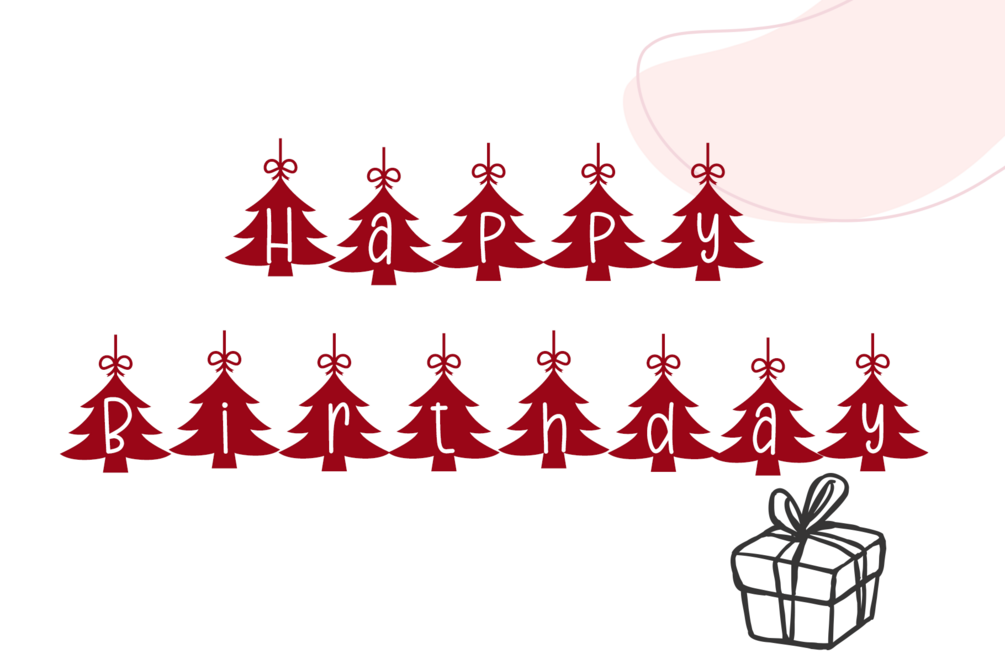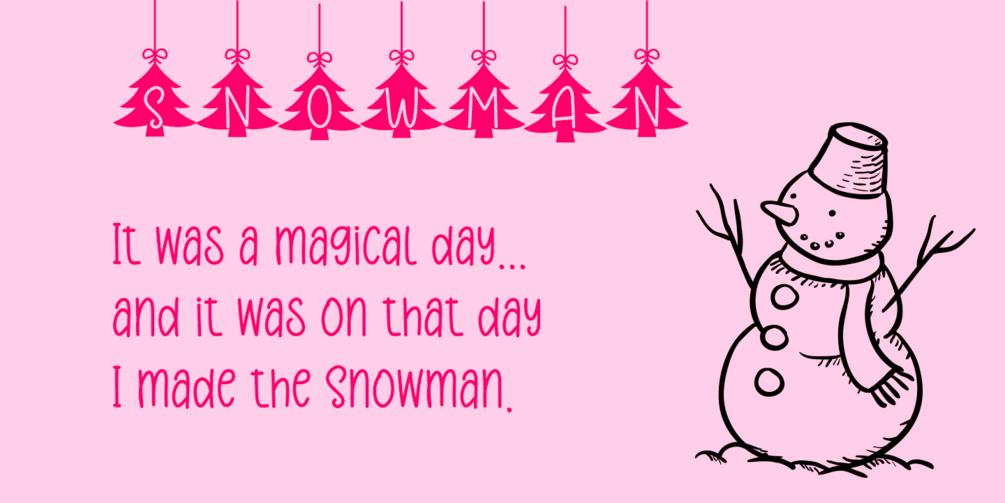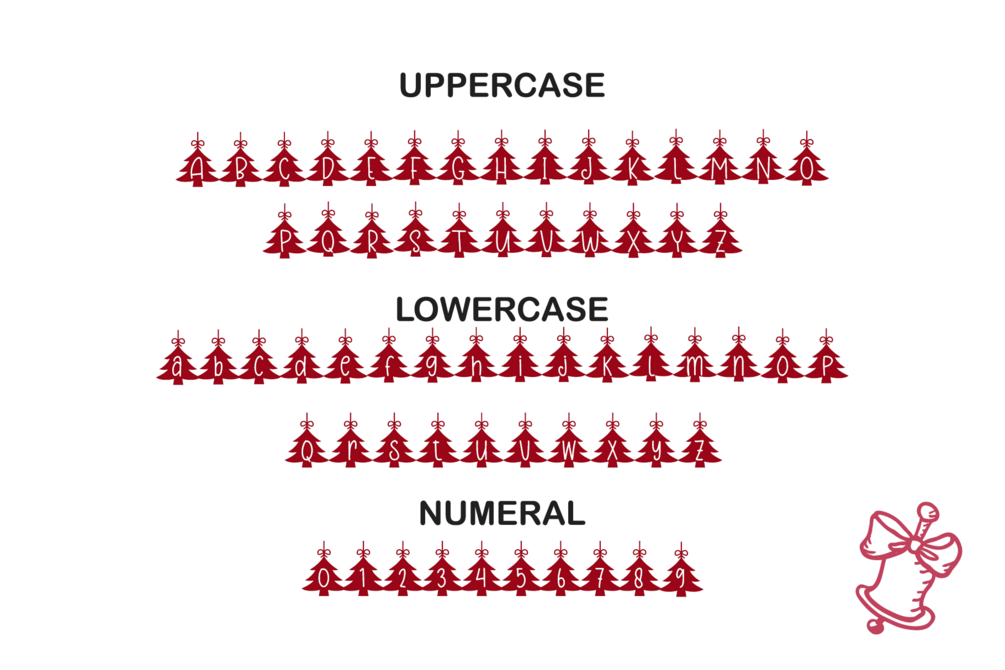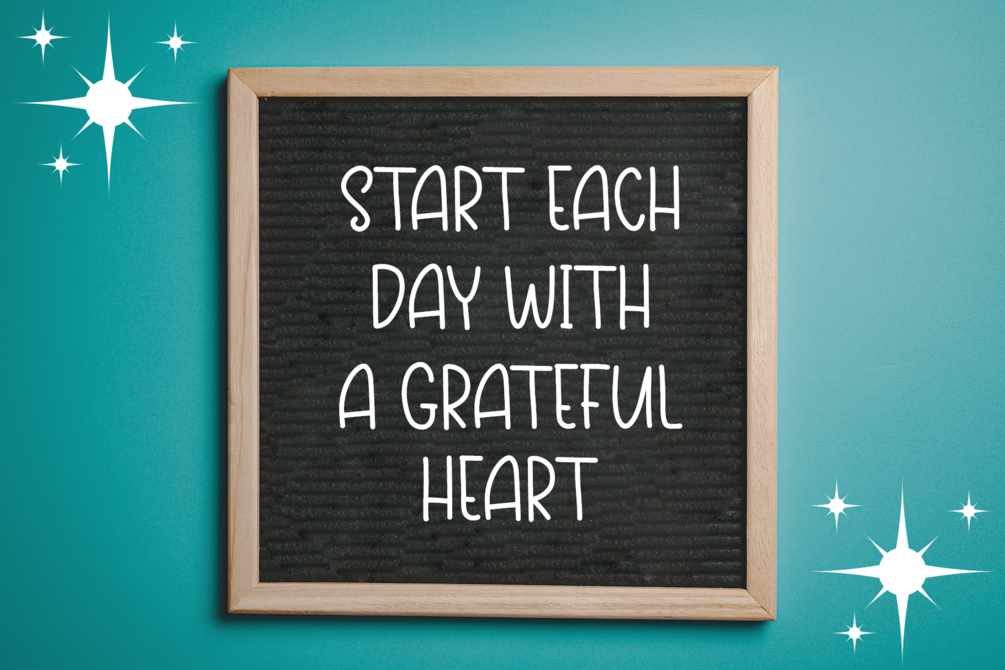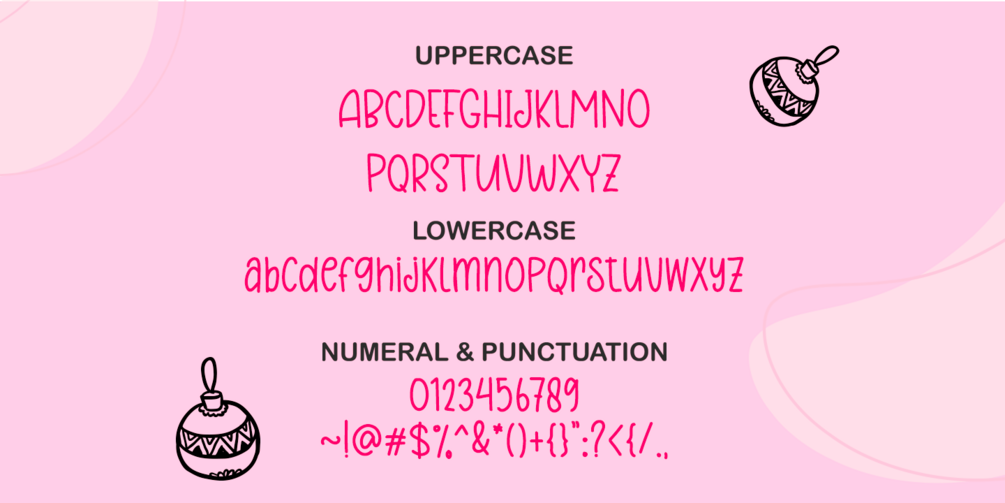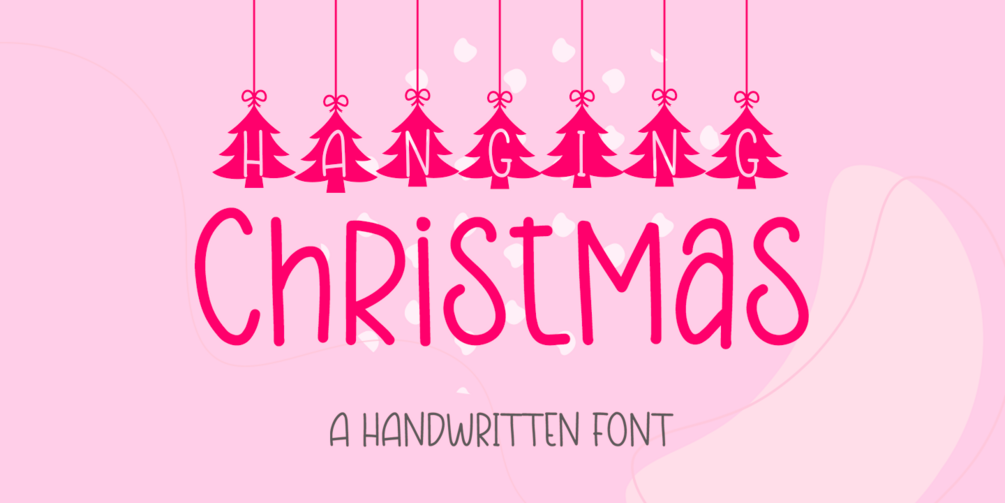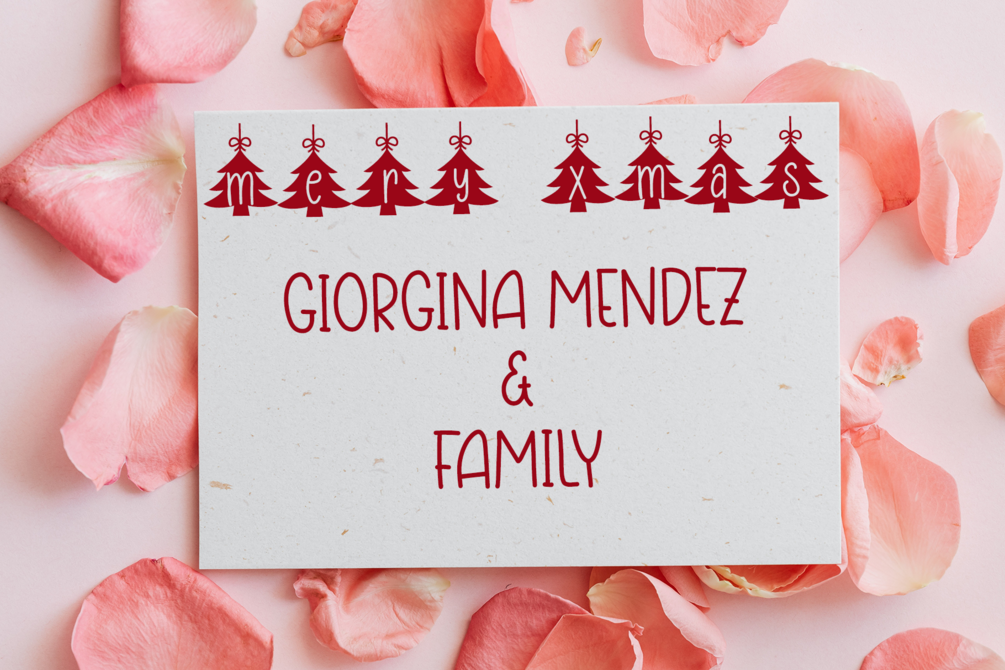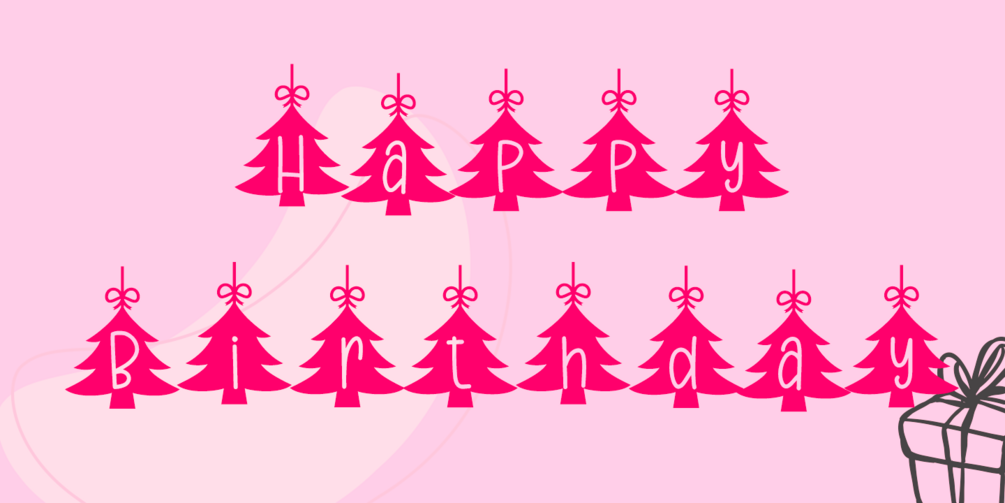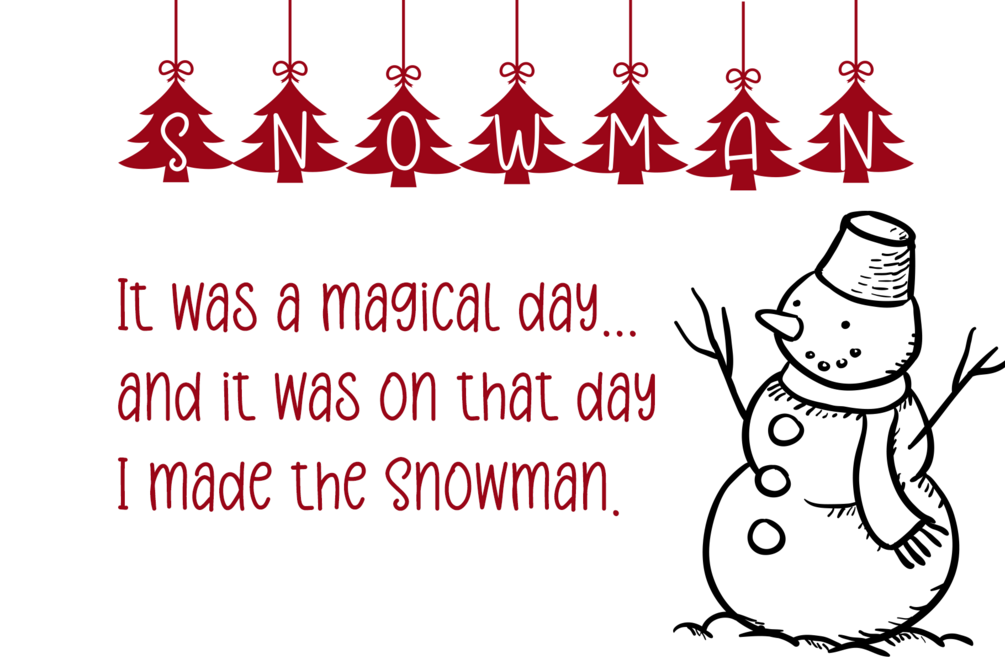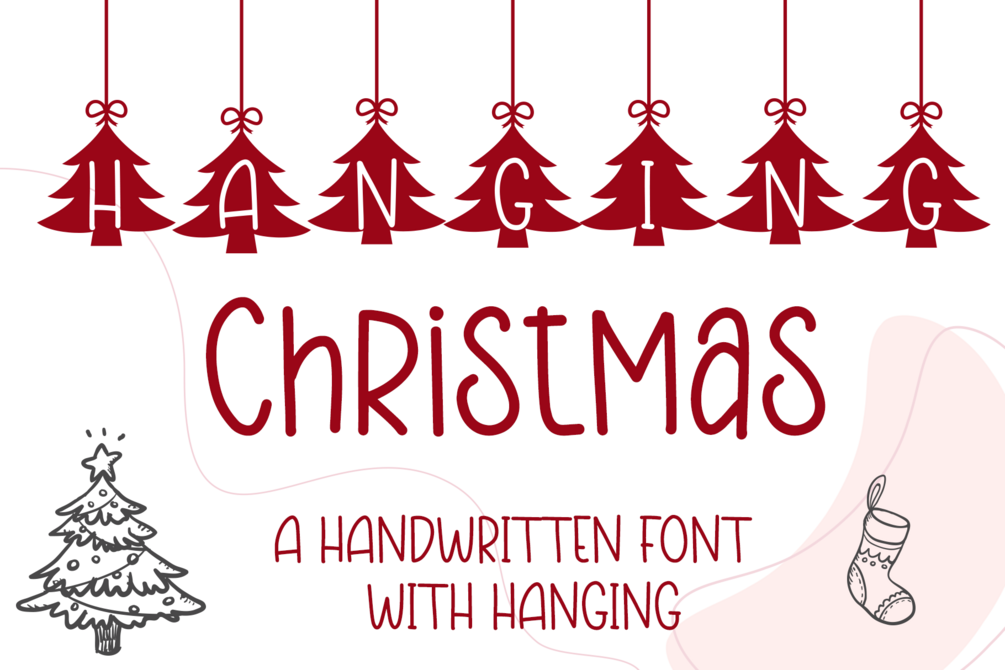
Hanging Christmas
Hanging Christmas is a handwritten duo font with a decorative style, perfect for creating a warm and joyful holiday atmosphere. Inspired by the iconic beauty of pine trees, this font is ideal for greeting cards, decorations, posters, and other design projects that need a unique festive touch. Bring the magic of Christmas to every creation with Hanging Christmas!